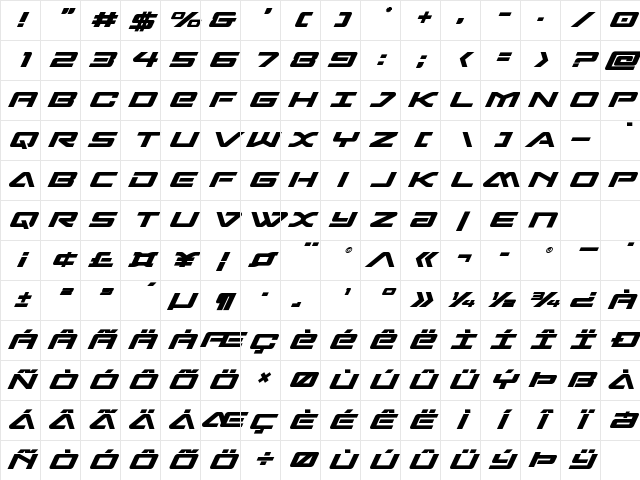
Design Context for Sabre Shark Semi-Bold
Sabre Shark Semi-Bold is a composed and adaptable typeface that performs quietly and consistently across a wide range of design contexts. Its bold stroke weight gives it real presence on the page.
Pro Tip: Use Sabre Shark Semi-Bold in both headline and body roles to test its range before committing to a single application.